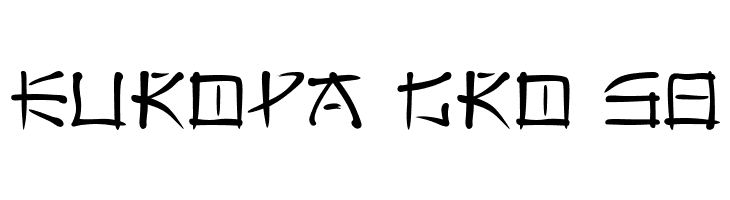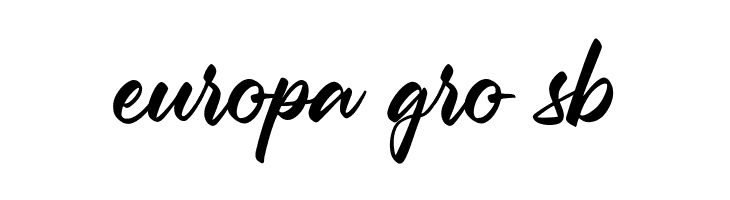
A dynamic cursive script font with bold, flowing strokes and elegant connections.
A brush-like, calligraphy-inspired font with dynamic strokes and an exotic aesthetic.